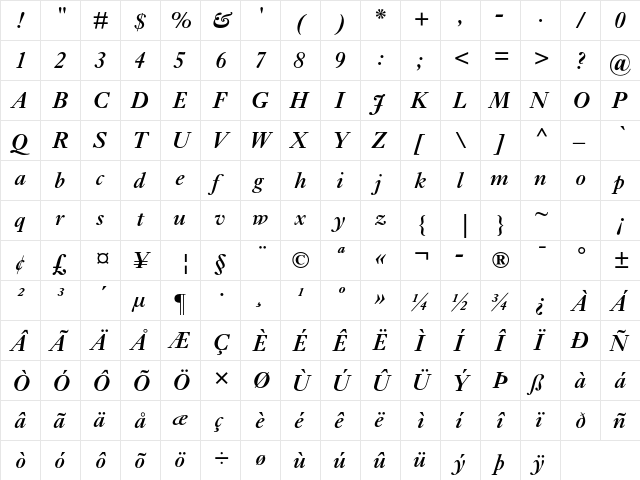
Ehrhardt MT Std Semibold Italic
Design Context for Ehrhardt MT Std Typeface
Ehrhardt MT Std offers clean, dependable letterforms without strong stylistic allegiance, making it a practical choice for designers who need flexibility. Its italic angle brings a sense of urgency and motion to the letterforms. Its bold stroke weight gives it real presence on the page.
Pro Tip: Use Ehrhardt MT Std for emphasis, pull quotes, and subheadings where its slanted energy can add rhythm to the layout.